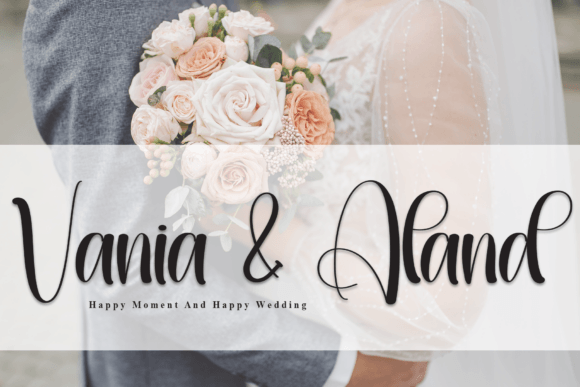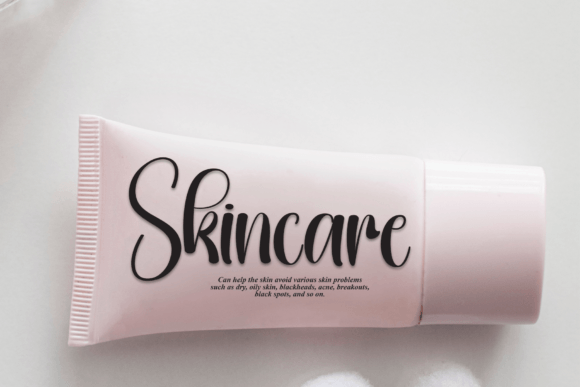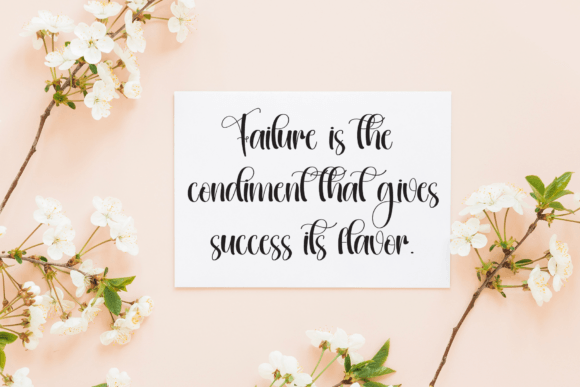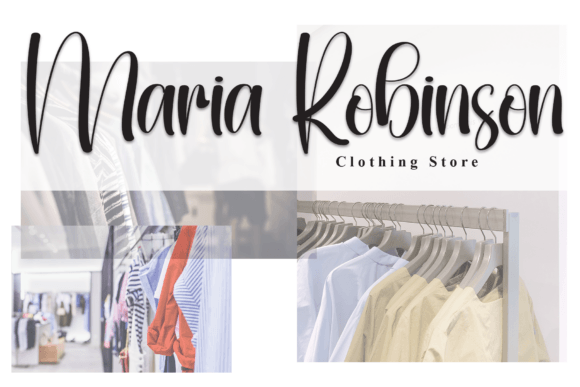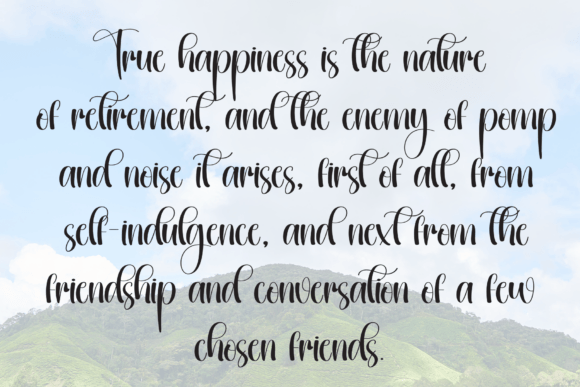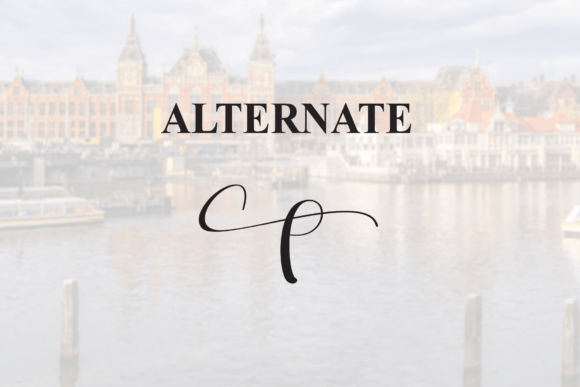
Discover the Elegance of Amsterdam Font: Elevate Your Designs with a Timeless Touch
Are you on the lookout for a font that can add a dash of elegance and sophistication to your designs? Look no further than the Amsterdam Font, a beautiful, flowing handwritten font that is sure to capture your heart. With its incredibly distinct and timeless style, Amsterdam Font is the perfect choice for designers and crafters looking to create spectacular designs that stand out from the crowd.
What Makes Amsterdam Font So Special?
Amsterdam Font is described by its elegant touch, which is evident in every curve and line of this stunning font. Its flowing handwritten style gives it a unique and sophisticated look that is perfect for a wide range of projects, from wedding invitations and branding materials to packaging and digital designs.
One of the key features that sets Amsterdam Font apart is its incredible legibility. Even at small sizes, this font remains clear and easy to read, making it perfect for use in a variety of applications. Whether you’re looking to create a beautiful headline or a detailed paragraph, Amsterdam Font is up to the task.
The Benefits of Using Amsterdam Font
So why choose Amsterdam Font for your next project? Here are just a few benefits of using this amazing font:
- Elegance and Sophistication: Amsterdam Font adds a touch of elegance and sophistication to any design, making it perfect for high-end branding and luxury projects.
- Versatility: This font can be used in a wide range of applications, from digital designs and social media graphics to print materials and packaging.
- Legibility: Amsterdam Font is incredibly easy to read, even at small sizes, making it perfect for use in body text and captions.
- Uniqueness: With its flowing handwritten style, Amsterdam Font is sure to stand out from the crowd and add a touch of personality to your designs.
How to Use Amsterdam Font in Your Designs
Using Amsterdam Font in your designs is easy. Here are a few tips to get you started:
- Pair it with a bold font: Amsterdam Font looks amazing when paired with a bold, sans-serif font. Try using it in combination with a font like Arial Black or Helvetica Bold to create a striking contrast.
- Use it for headlines and titles: Amsterdam Font is perfect for use in headlines and titles, where its elegant and sophisticated style can really shine.
- Add some texture and depth: Consider adding some texture and depth to your designs by layering Amsterdam Font over a background image or texture.
Who Can Benefit from Using Amsterdam Font?
Amsterdam Font is perfect for a wide range of designers and crafters, including:
- Graphic Designers: Whether you’re working on a branding project, creating social media graphics, or designing a website, Amsterdam Font is a great choice.
- Stationery and Paper Crafters: Add a touch of elegance to your stationery and paper crafts with Amsterdam Font, perfect for use in invitations, cards, and other paper projects.
- Digital Artists: Use Amsterdam Font to add a touch of sophistication to your digital art, from illustrations and graphics to paintings and mixed media.
In conclusion, Amsterdam Font is a beautiful, flowing handwritten font that is sure to elevate your designs to the next level. With its elegant touch, incredibly distinct and timeless style, and versatility, this font is perfect for designers and crafters looking to create spectacular designs. Whether you’re working on a branding project, creating stationery, or designing a website, Amsterdam Font is a great choice. So why wait? Fall in love with Amsterdam Font and start creating stunning designs today!